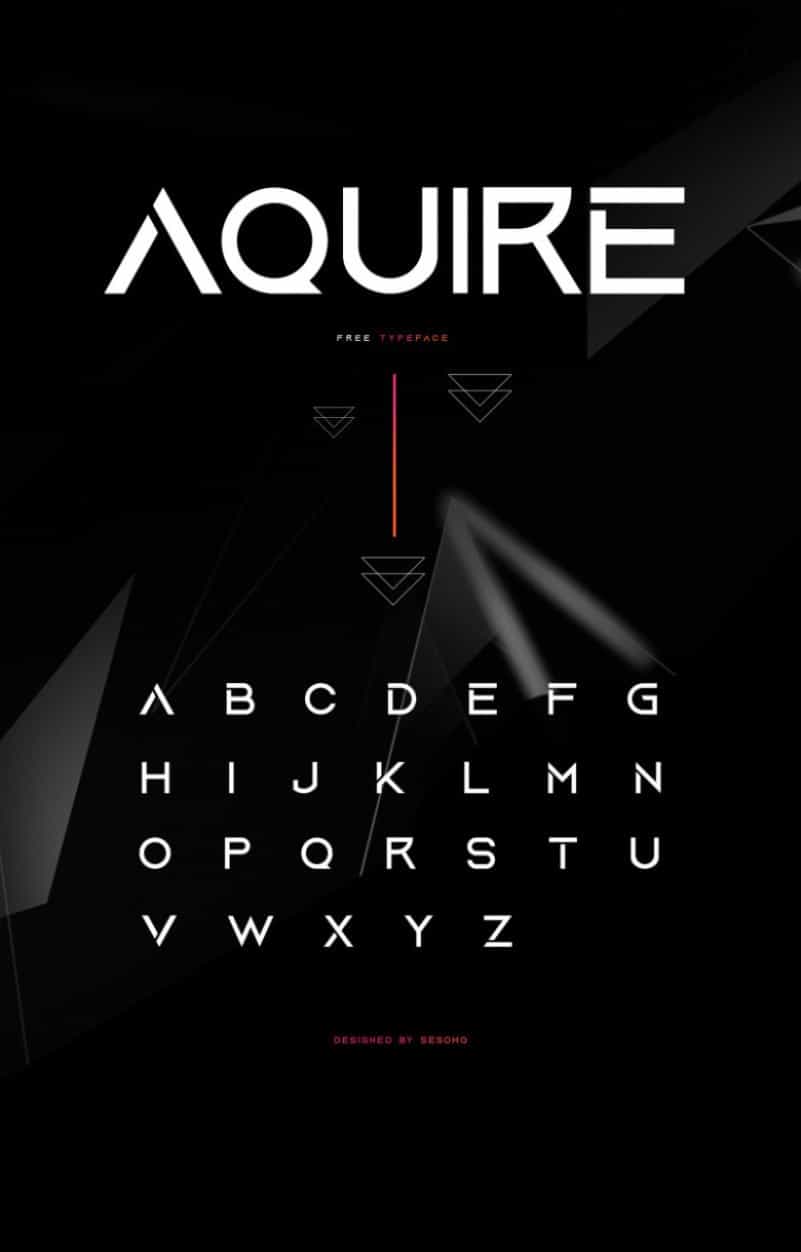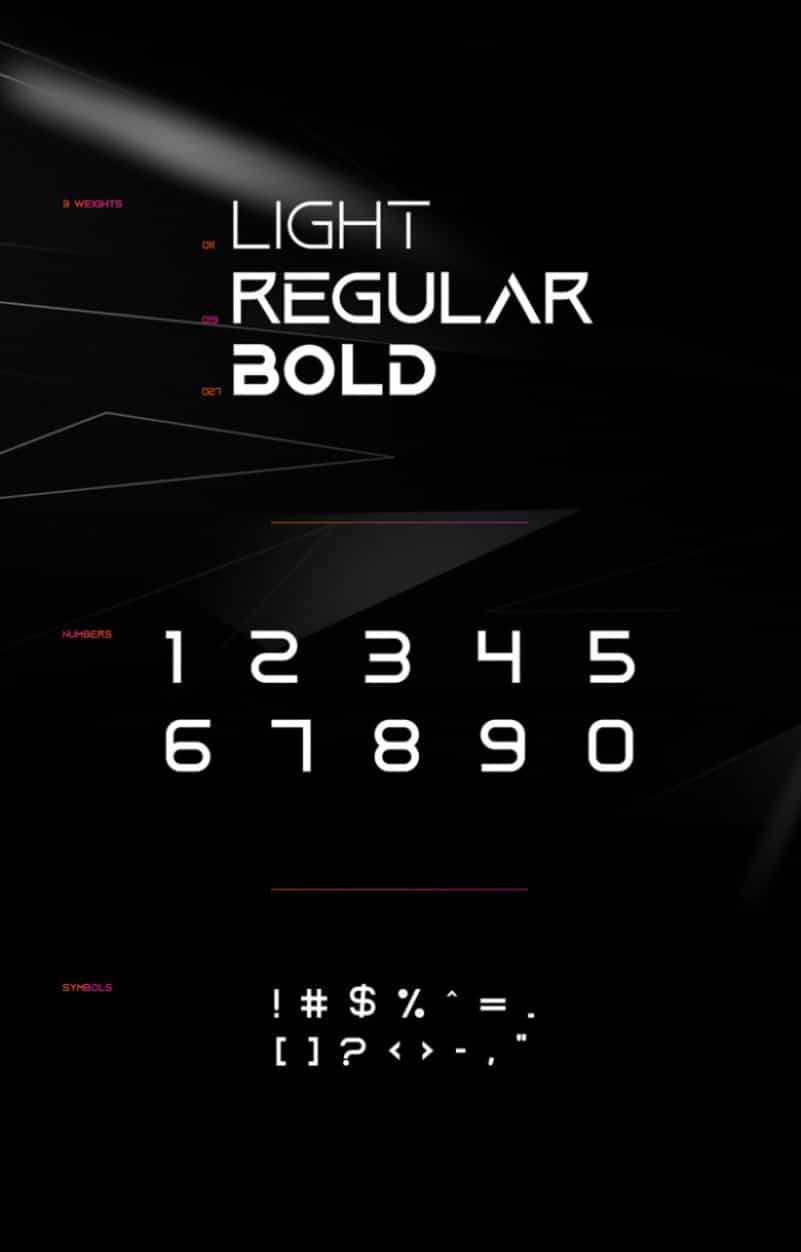
Aquire Font is the 3-weight typefamily which was created to be used for display and it’s also very attractive. The font is characterized by semi-stencil style which gives it a modern, edgy and futuristic vibe making this font suitable for logos, headlines, branding purposes and other purposes.